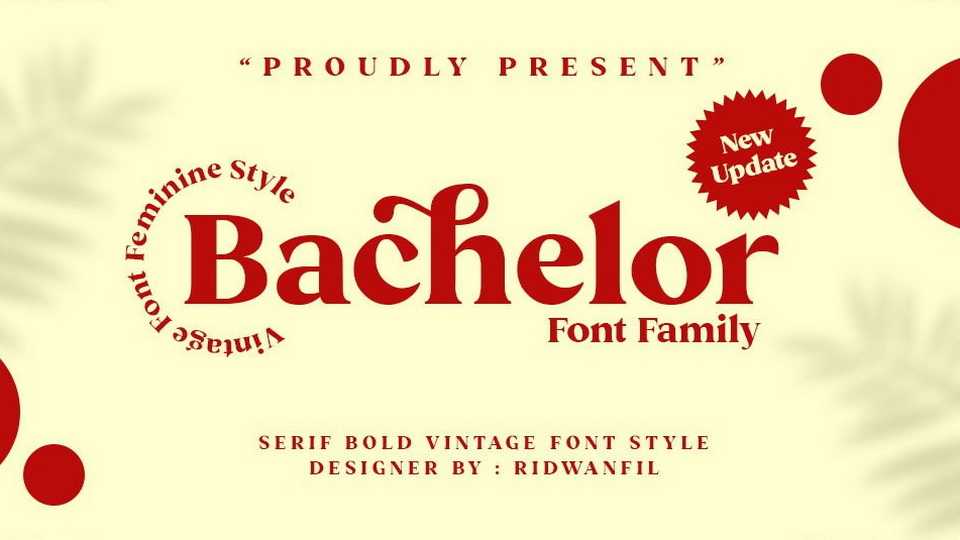
Download Bachelor font, a display serif typeface inspired by feminine and vintage fonts that are bold, soft and strong. Bachelor font is especially for those who express grace, beauty, confidence and trust in their business and branding.